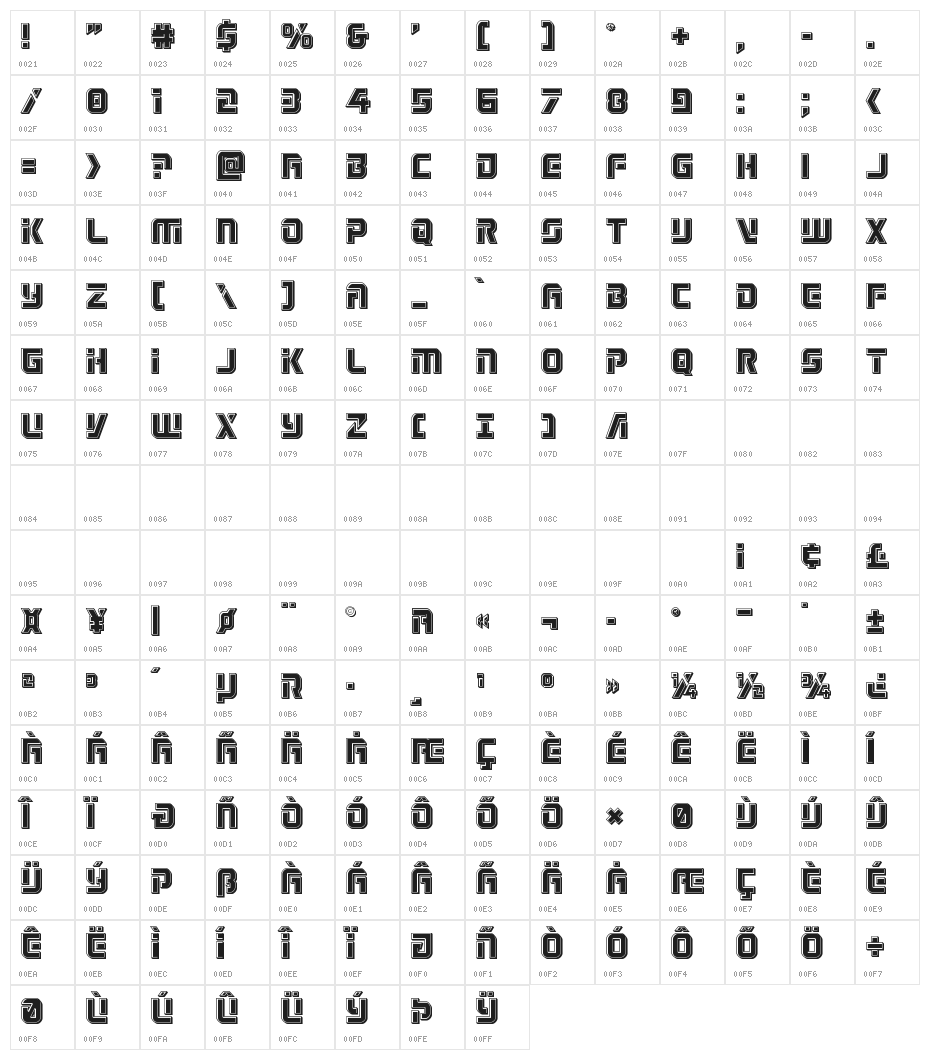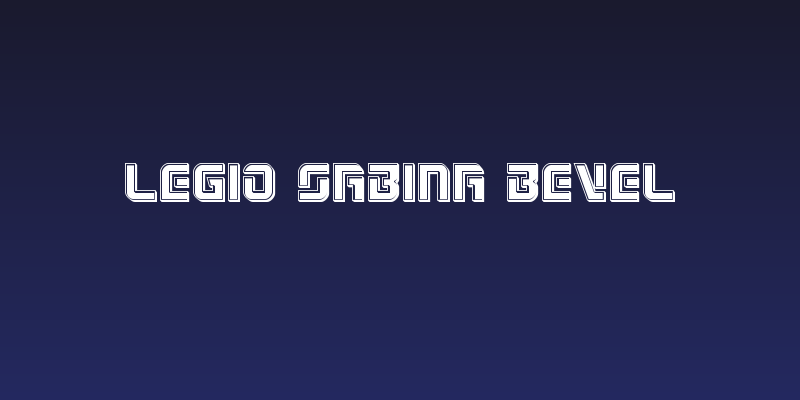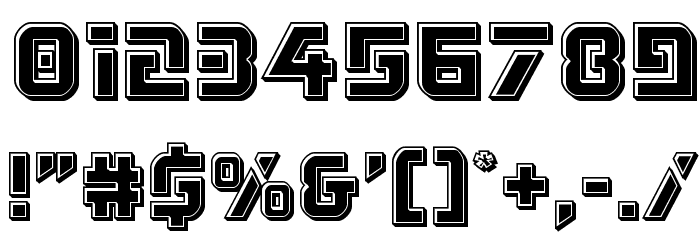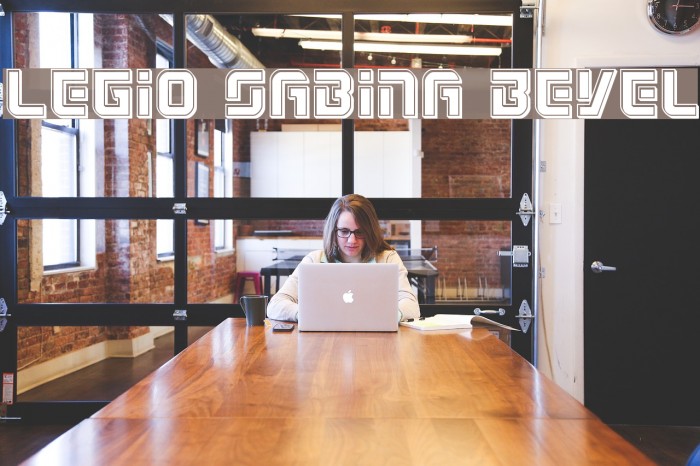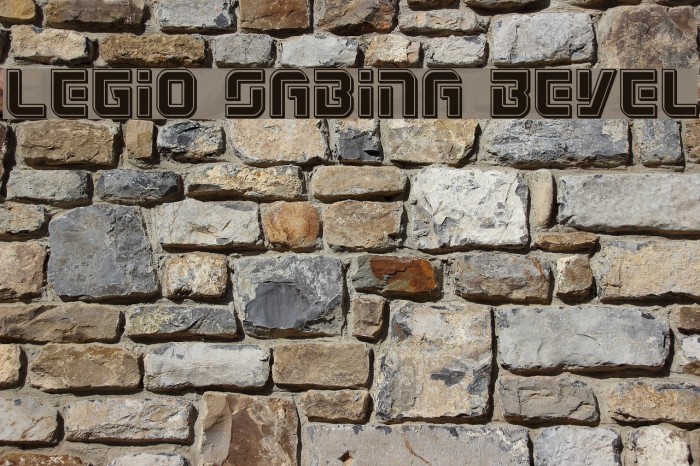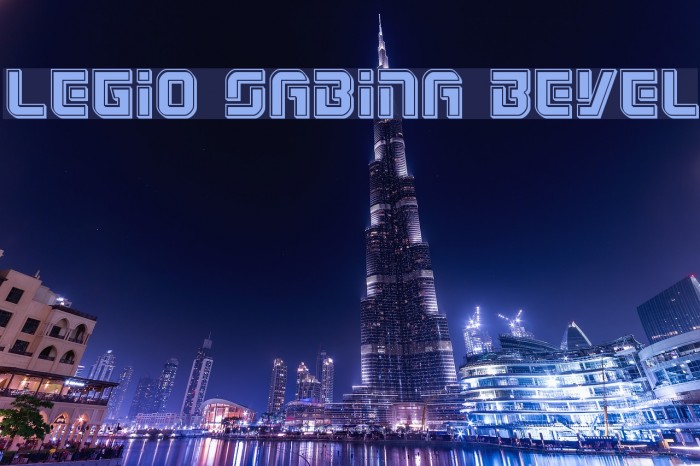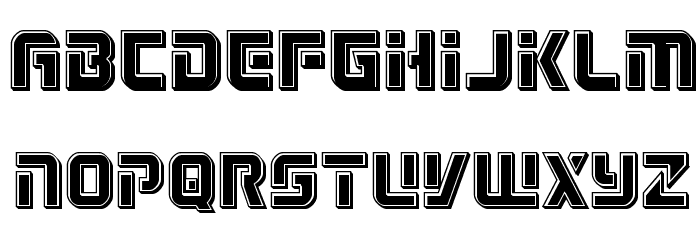
Legio Sabina Bevel Font
Legio Sabina Bevel Description
This font features a bold, geometric design with a distinct beveled edge that gives it a three-dimensional appearance. The characters are uniformly structured, with a strong emphasis on angular lines and sharp corners. The uppercase and lowercase letters maintain a consistent style, creating a cohesive look across the alphabet. The numerals and special characters are designed to match the boldness and angularity of the letters, ensuring a uniform appearance throughout. This font's unique style makes it stand out, offering a modern and edgy aesthetic that is both eye-catching and versatile.